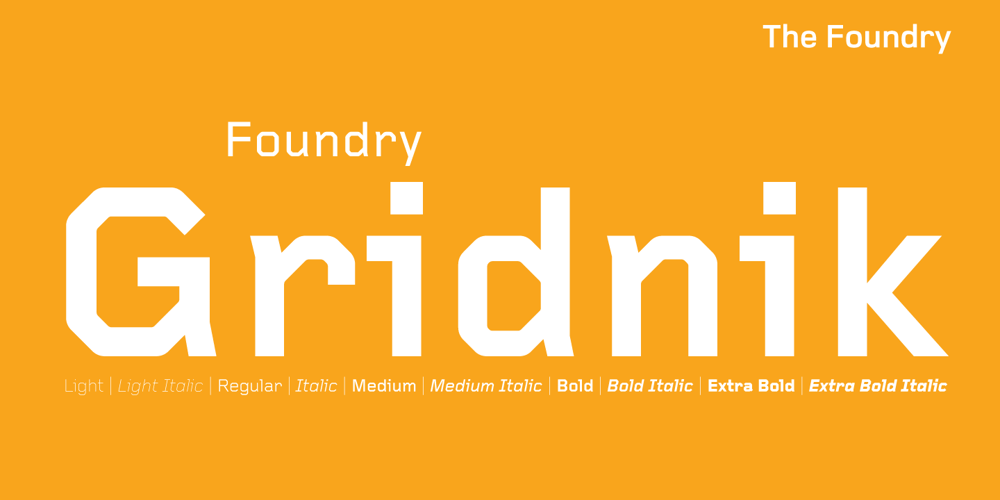
Foundry Gridnik
Foundry Gridnik font
Foundry Gridnik Font Family was designed by Wim Crouwel, Freda Sack, David Quay and published by The Foundry. Foundry Gridnik contains 10 styles and family package options. The new Foundry Gridnik typeface family features an expressive range of 10 weights – from Light to Extra Bold, each with accompanying Italics. Foundry Gridnik was developed from the single weight monospaced ‘typewriter’ face, originally created by Dutch designer Wim Crouwel in the 1960s. Crouwel’s devotion to grids and systems led to his affectionate nickname of ‘Mr Gridnik’, and this inspired the new typeface family name. Foundry Gridnik’s distinct geometric design has been described as ‘the thinking man’s Courier’. Crouwel said, ‘I am a functionalist troubled by aesthetics’, and although Gridnik is based on logic, rationality and strict adherence to the grid, it also has a human dimension that sets it apart.